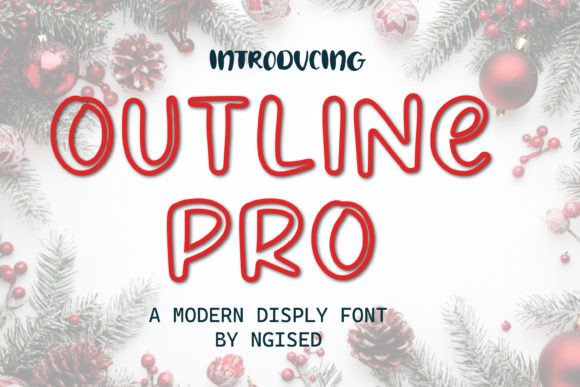
Introduction to Outline Pro Font
Remember that moment when you’re brainstorming ideas for a new design project, and you need a font that screams ‘attention-grabbing’? That’s where the Outline Pro Font comes in – a game-changer for designers looking to elevate their creative project to the next level. This modern, bold typeface is designed to make a statement, and its sleek, minimalist outline style ensures that your text stands out from the crowd.
As a valuable addition to any design resource, Outline Pro Font is the perfect choice for branding, posters, digital designs, and editorial layouts where a bold statement is required. With its high-quality design and transparent background, this font is versatile and easy to work with, making it a must-have for any designer looking to add a touch of sophistication to their projects.
Key Features of Outline Pro Font
- High-quality design resource with a unique outline style, perfect for creative projects.
- Transparent background option allows for easy customization and layering in your design.
- Compatible with a range of resolutions, including high-resolution designs for print and digital applications.
- Unique outline design allows for creative flexibility and experimentation in your projects.
- Scalable to any size, ensuring your designs look great from small to large formats.
Honest Review: Outline Pro Font
As a designer, I’m always on the lookout for high-quality design resources that can elevate my creative projects. I recently had the chance to try out the Outline Pro Font, and I’m excited to share my honest review.
- Unique and modern design style that’s perfect for modern creative projects.
- High-quality vectors that can be scaled up or down without losing any detail.
- Transparent background option that makes it easy to use in various design scenarios.
- Limited character set, which might be a problem for designers who need to use the font for extensive text-based projects.
- No bold or italic styles available, which can limit its use in certain design scenarios.
Overall, I’m impressed with the Outline Pro Font’s design style and quality. While it has some limitations, it’s a great resource for designers who want a modern and sleek look for their creative projects. I’d definitely recommend it to anyone looking for a high-quality font on a budget.
Getting the Most Out of Outline Pro Font
Some tips for getting the most out of Outline Pro Font include using it in conjunction with a transparent background to create a clean and modern design, and experimenting with different font sizes and colors to add visual interest to your project.
Outline Pro Font is a versatile design resource that can be used in a variety of creative projects, including logos, business cards, and social media graphics. It’s also a great choice for creating a consistent brand identity across multiple platforms.